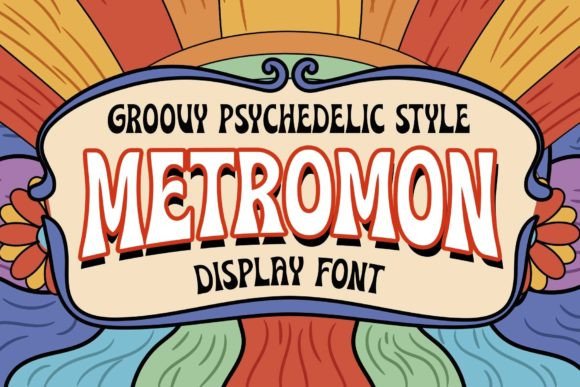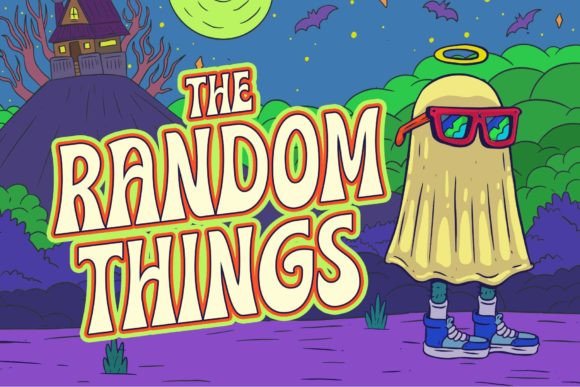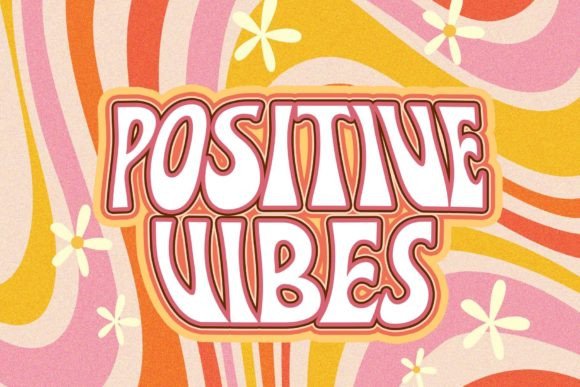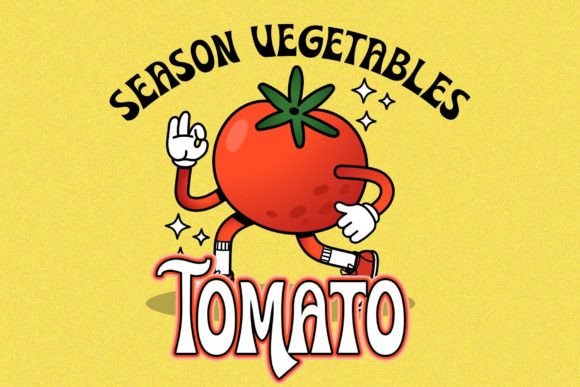
Metromon Font: Groovy 80s Retro Font for Bold Headlines & Poster Design
About the Metromon Font
Presenting Metromon Font, a unique and stylish typeface that will make your work stand out. Metromon is a vintage font that combines groovy and psychedelic styles. It is designed to take you back to the nostalgic era of the 80s. Its unique shape provides opportunities for you to use it in various styles, especially in pop art and retro themes.
This font is highly versatile with its bold and flowing form, allowing you to add a more dynamic touch. It is well-suited for posters, branding, logos, social media, advertisements, motion graphics, labels, and more!
Metromon excels in headline use, short taglines, and logo design where its bold, retro character shines. It’s ideal for projects evoking 80s nostalgia, pop art aesthetics, or a playful, energetic brand identity. Avoid using it for large bodies of text or UI elements; its distinctive forms are less legible in extended reading.
Pairing Metromon with a clean sans-serif like Open Sans for body copy creates a strong visual hierarchy. For a more vintage feel, consider a complementary serif like Playfair Display. A simple geometric sans-serif could also work well, offering a modern counterpoint to Metromon’s retro style.
The overall personality of Metromon is bold and playful, yet retains a level of sophistication suitable for brands seeking a retro-inspired but refined aesthetic. Think vibrant apparel brands, music festivals, or quirky entertainment companies.
Metromon Font Usage Examples
Metromon Font Example